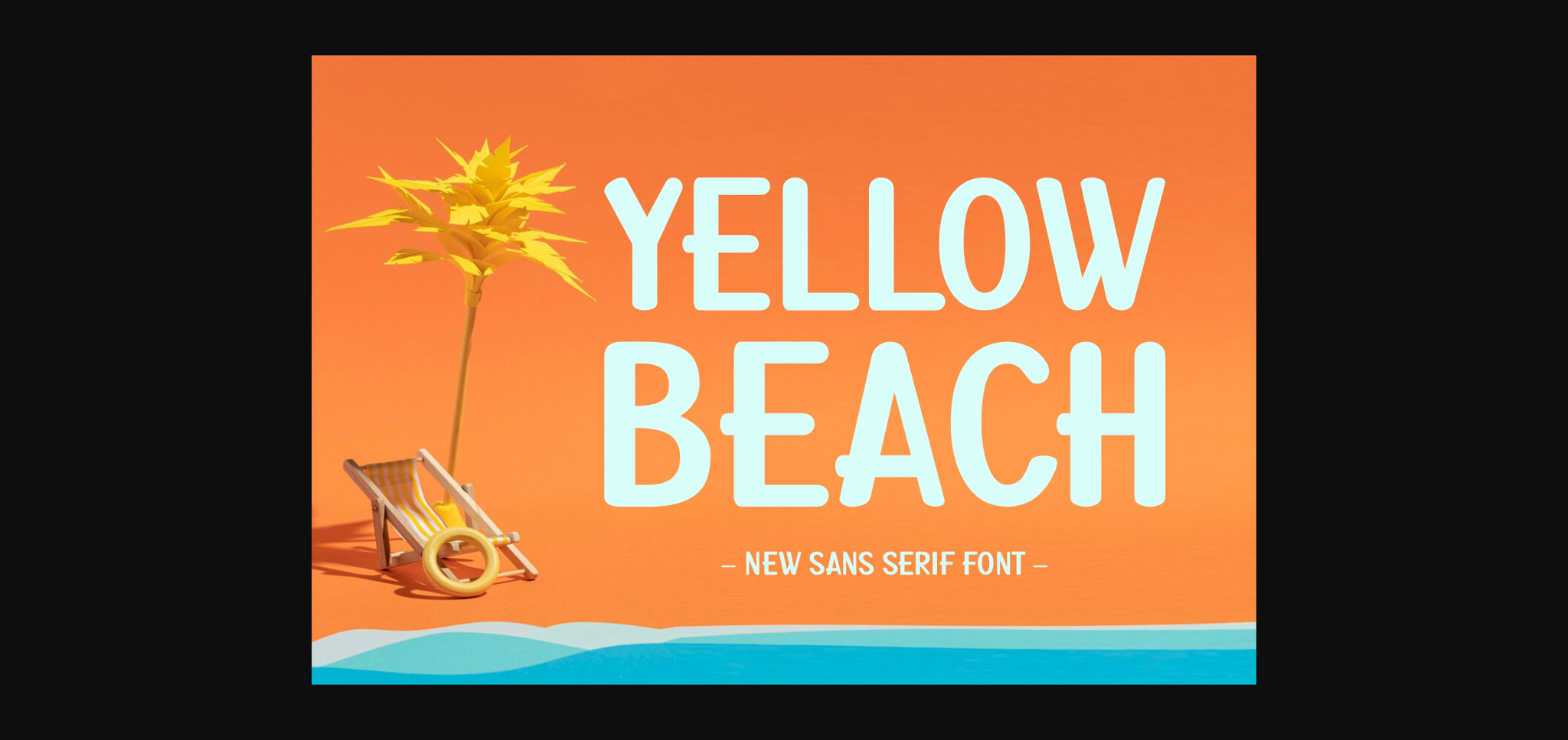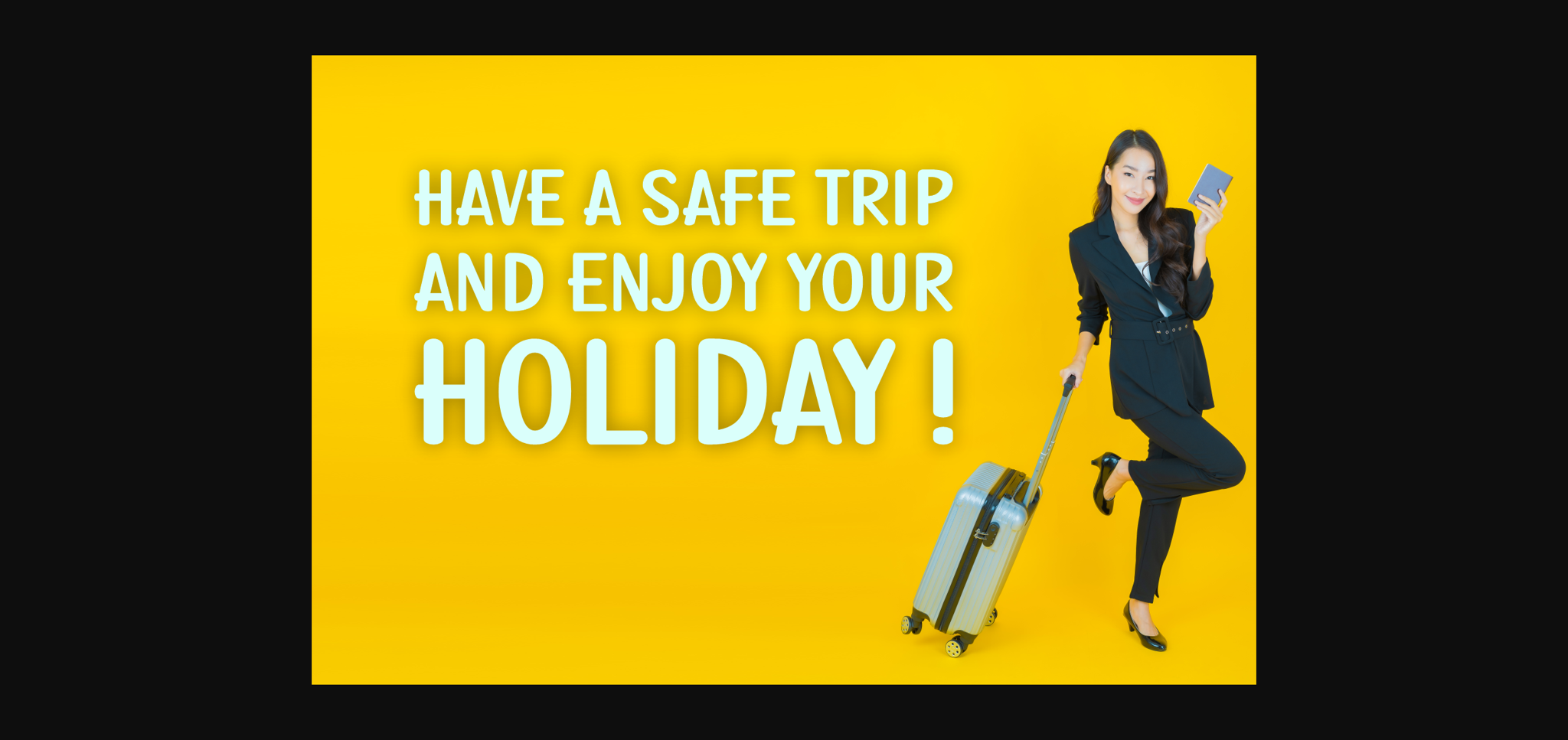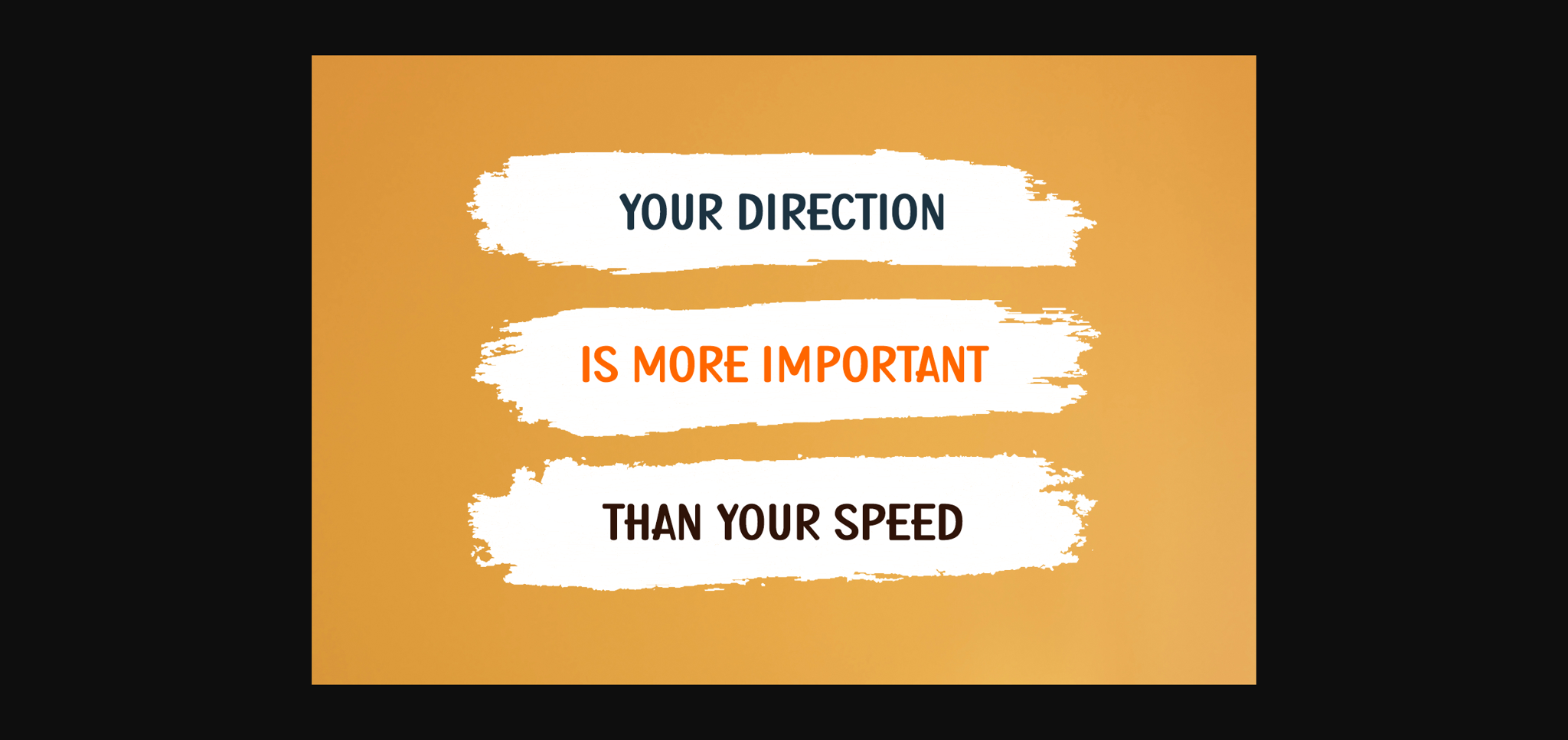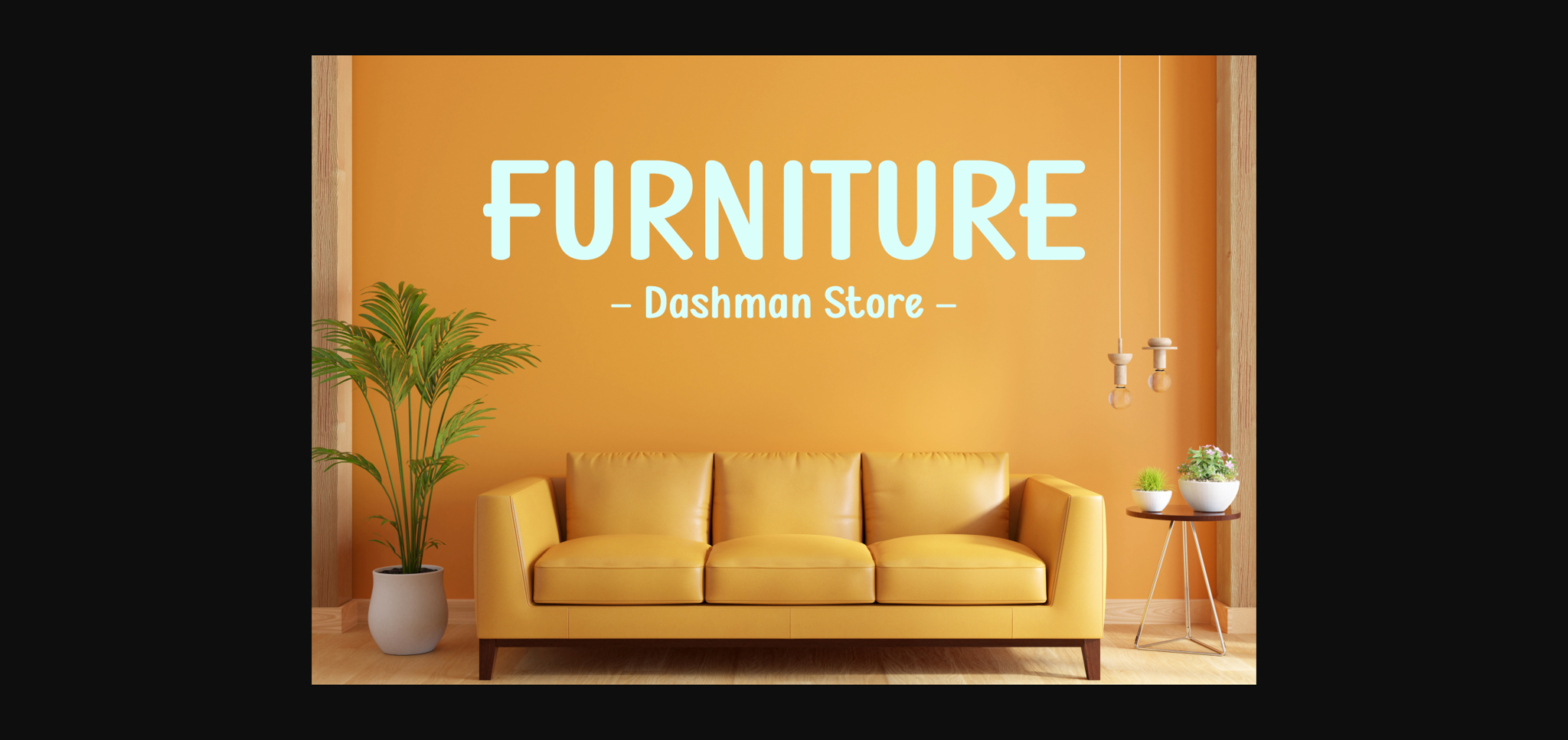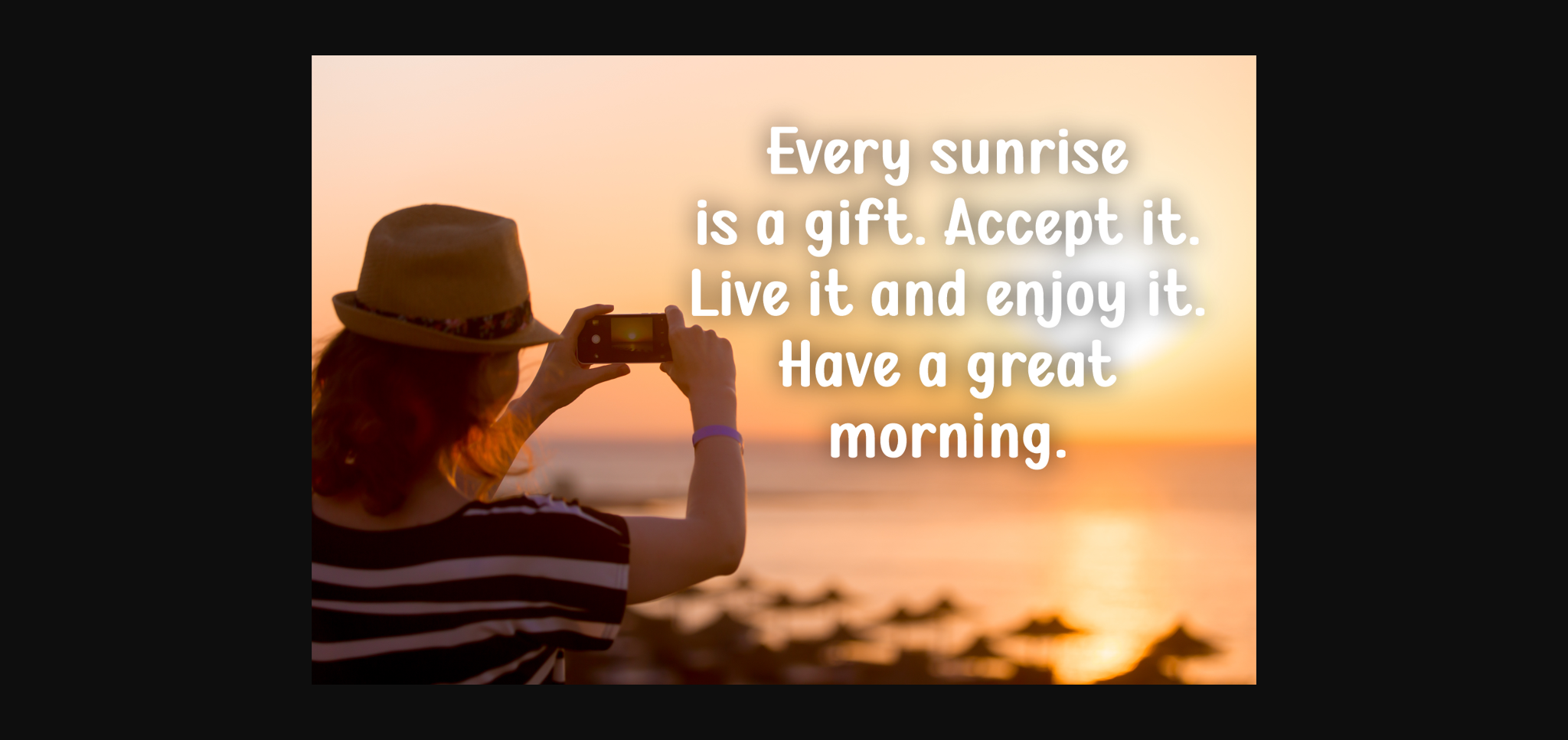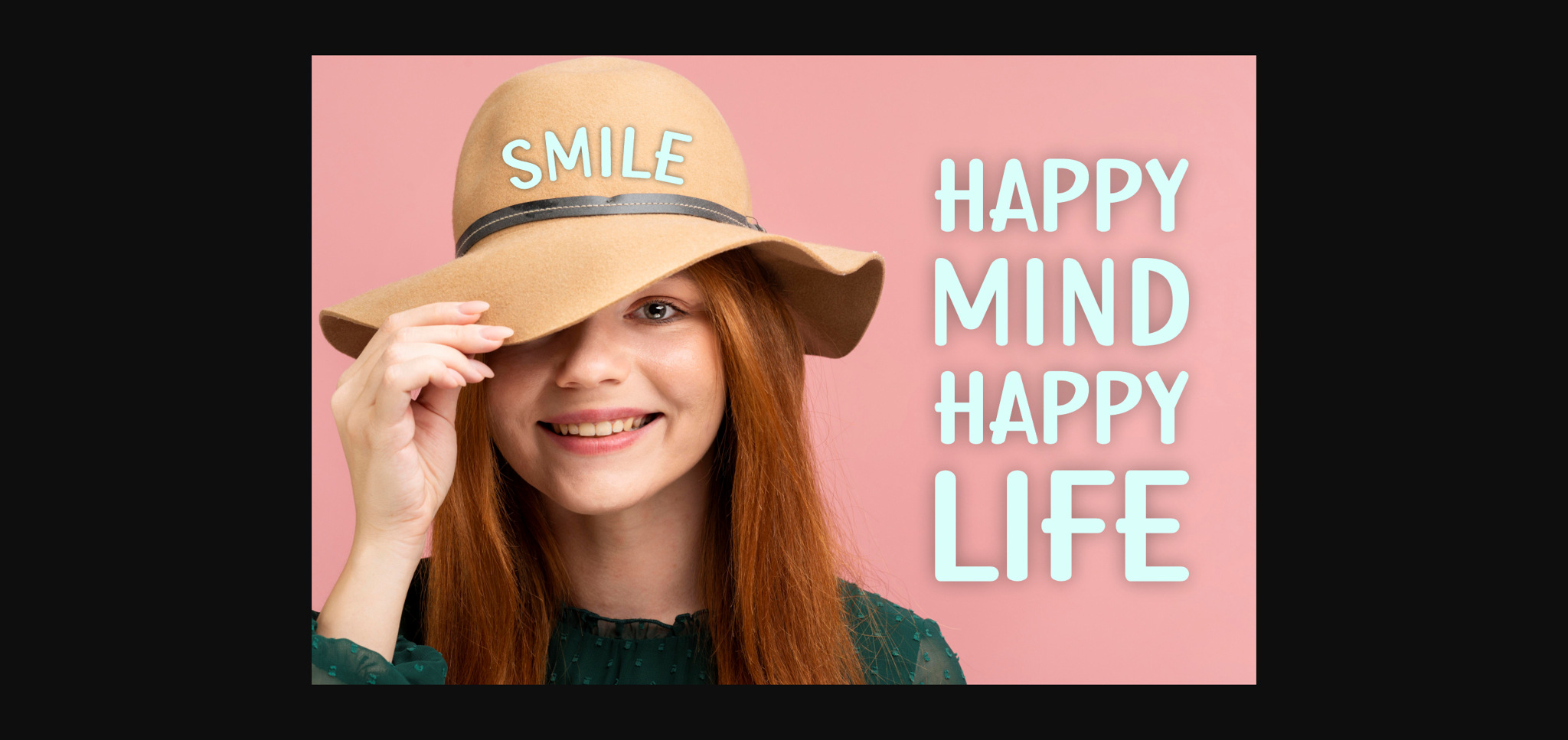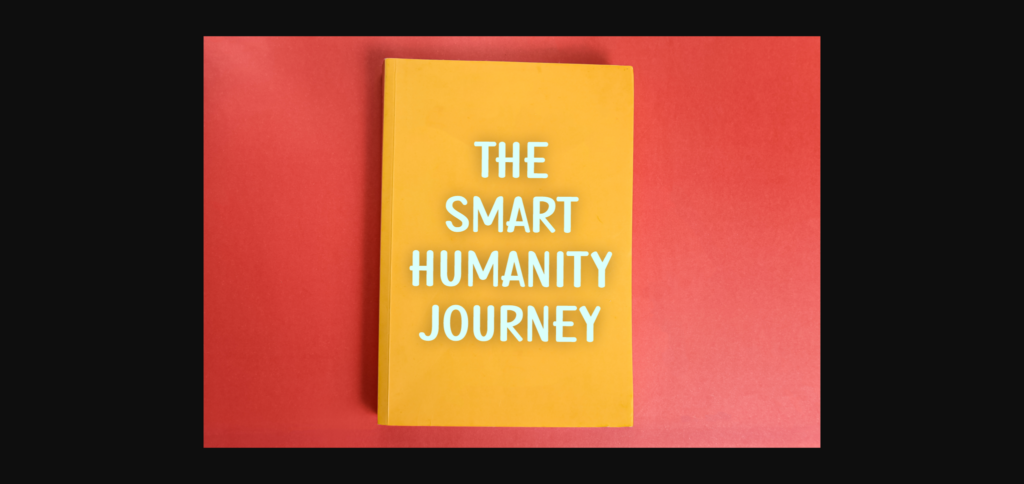
Yellow Beach Font
About Yellow Beach Font
Yellow Beach is a clean and straightforward sans-serif font that radiates a relaxed and modern vibe. With its simplicity, this font is easy on the eyes and perfect for a variety of projects. Whether you’re designing a beach-themed poster, a casual invitation, or any creative endeavor, Yellow Beach adds a touch of contemporary style. Embrace the sunny simplicity of this font and let your text shine with a laid-back and friendly feel.